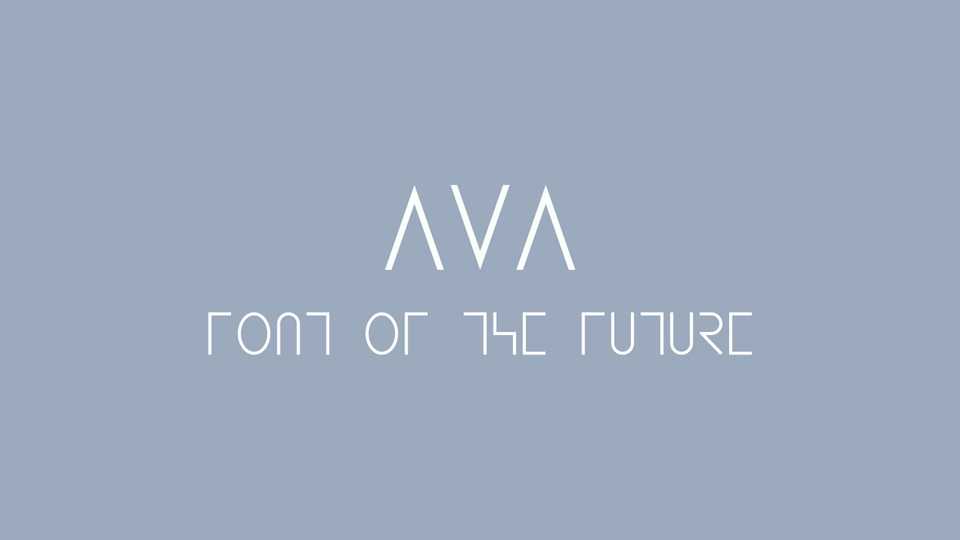
Download AVA font, a clean and minimal display typeface with a futuristic look. AVA font is suitable all kinds of techno and sci-fi projects: from posters, web design, branding, to movie titles, badges, and especially logotypes and headlines.